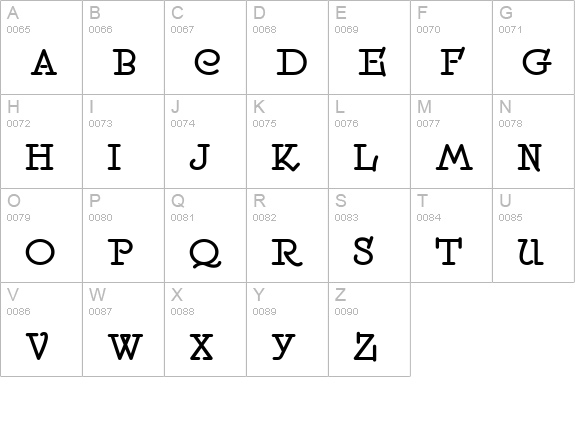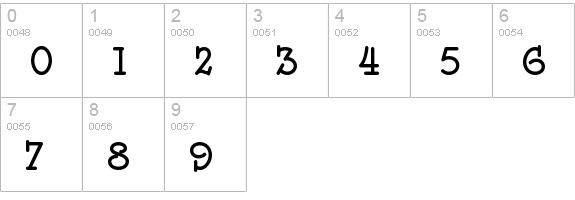
SpeedballNo2NF Bold Font Details
SpeedballNo2NF Bold is a strong, high-contrast variant in the SpeedballNo2NF typeface family \xE2\x80\x94 well suited to headlines, attention-grabbing titles, and strong calls-to-action.
SpeedballNo2NF Bold is a striking and dynamic font that demands attention with its bold and powerful presence. It exudes a sense of strength and confidence, making it the perfect choice for designs that require a strong visual impact. With its thick and prominent letterforms, it is ideal for headlines, titles, and any design where you want to make a bold statement. The SpeedballNo2NF Bold font is characterized by its clean and precise lines, giving it a modern and sleek appearance. It combines the classic elements of a bold typeface with a contemporary twist, making it versatile and suitable for a wide range of design projects. One of the best things about SpeedballNo2NF Bold is that it is freely available to download at FontsMarket.com. This means that you can easily access and use this font in your designs without any cost. Whether you are a professional designer or a hobbyist, having access to a high-quality font like SpeedballNo2NF Bold can greatly enhance your creative projects. The font is also highly legible, ensuring that your message is conveyed clearly and effectively. Its bold weight and distinctive letterforms make it easy to read even at smaller sizes, making it a great choice for both print and digital designs. In addition to its visual appeal, SpeedballNo2NF Bold also offers excellent versatility. It can be paired with a variety of other fonts, allowing you to create unique and interesting combinations. Whether you are creating a logo, a poster, a website, or any other design, SpeedballNo2NF Bold can add a touch of sophistication and style. Overall, SpeedballNo2NF Bold is a free font that offers a bold and impactful design solution. With its strong presence, clean lines, and versatility, it is sure to elevate your designs and make them stand out. So go ahead and download SpeedballNo2NF Bold from FontsMarket.com to enhance your creative projects today!